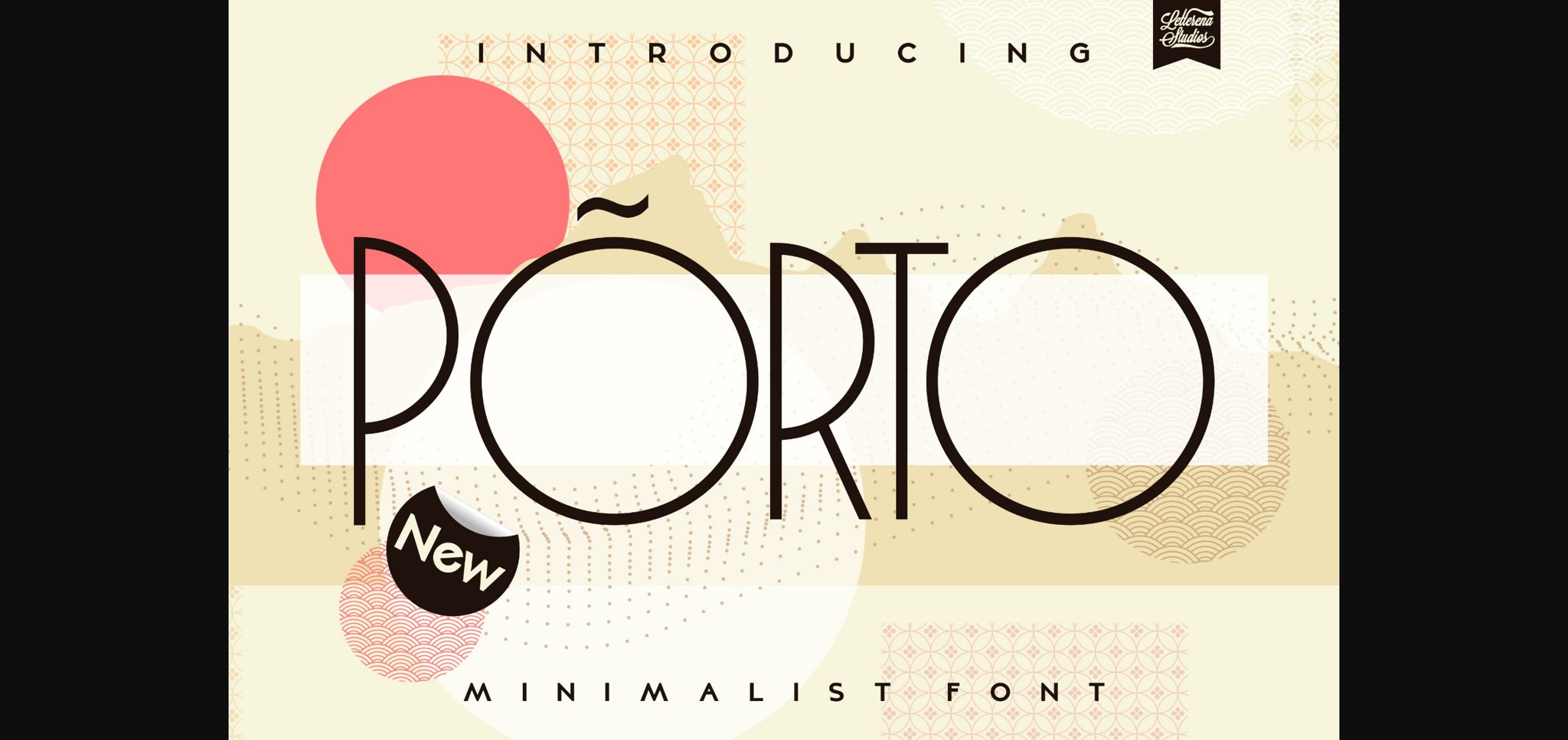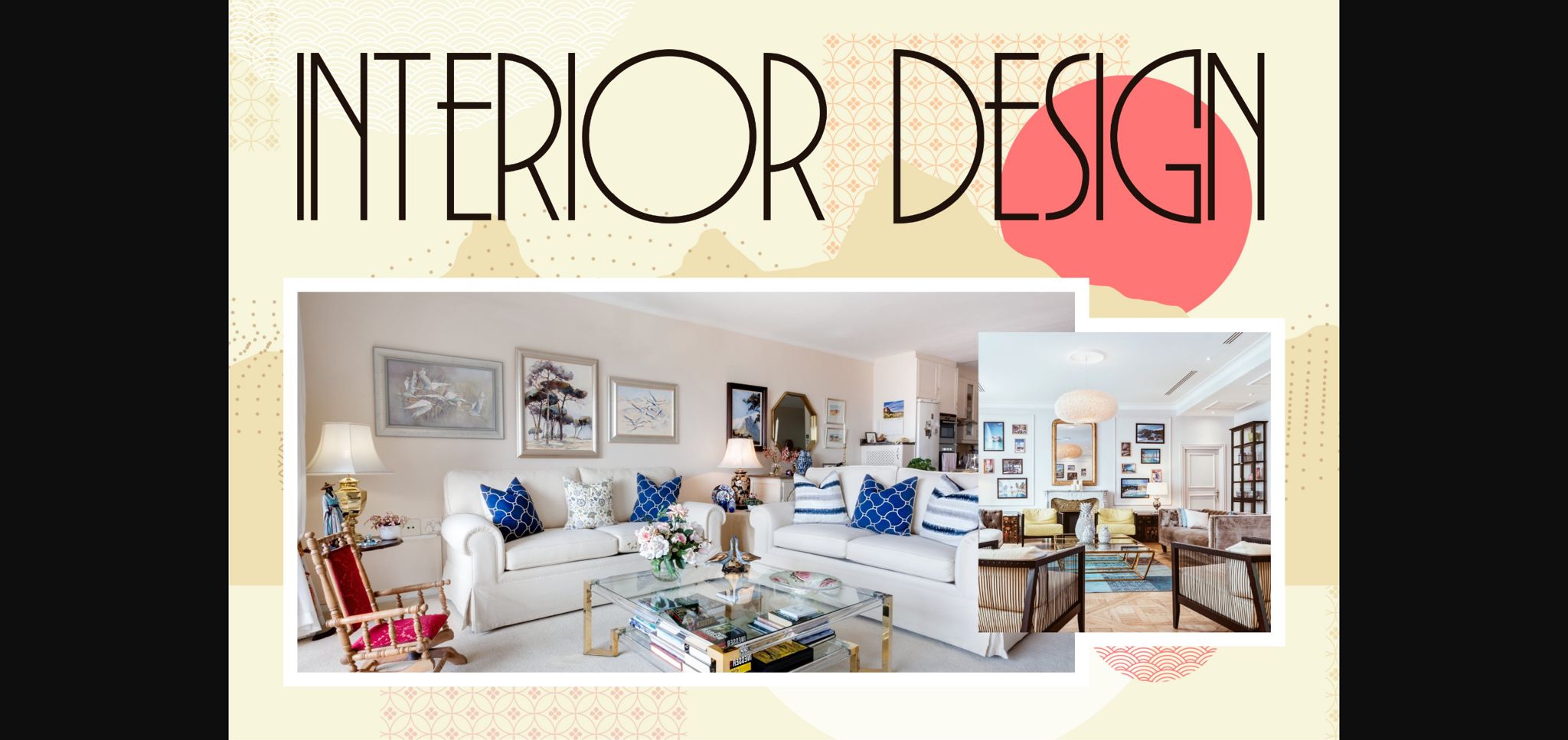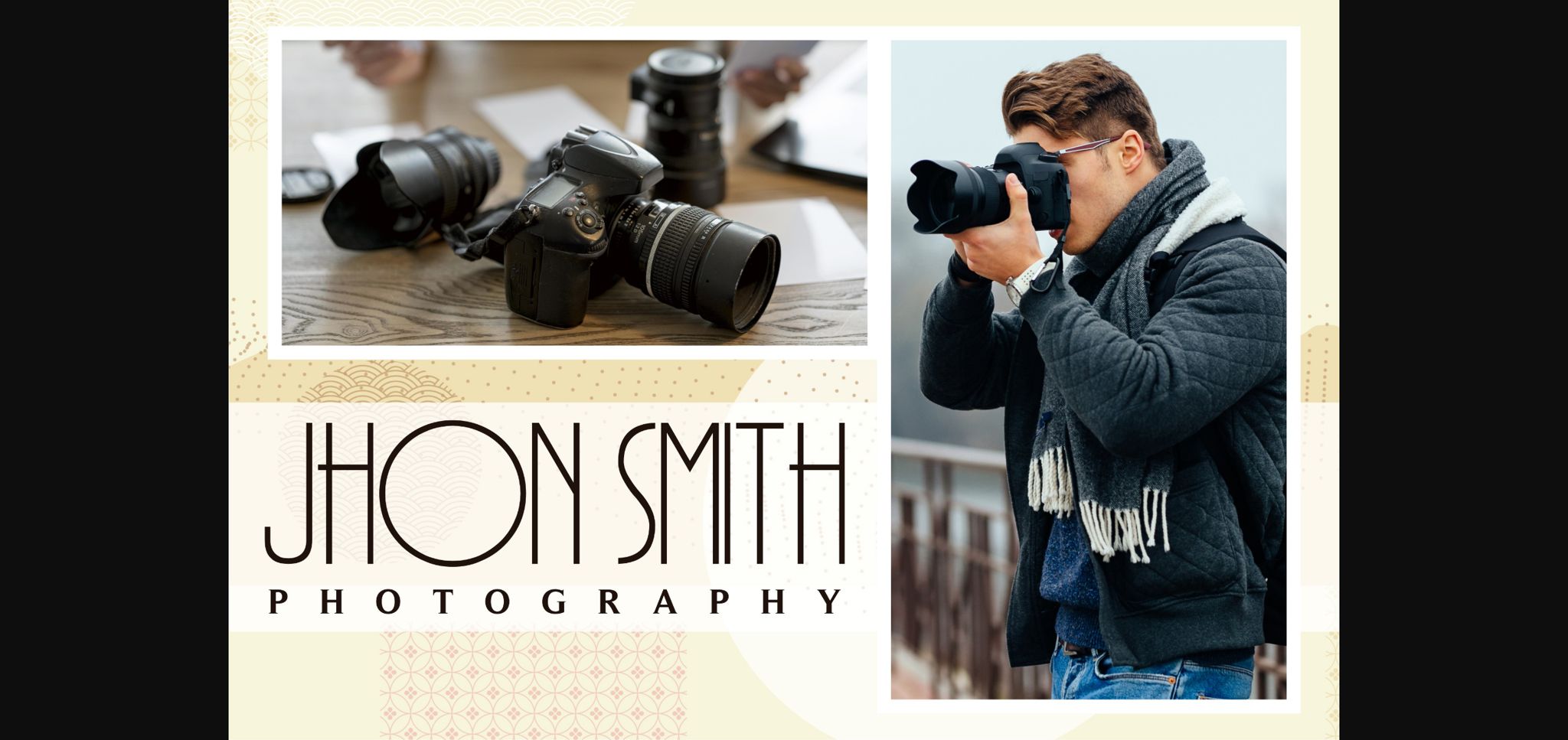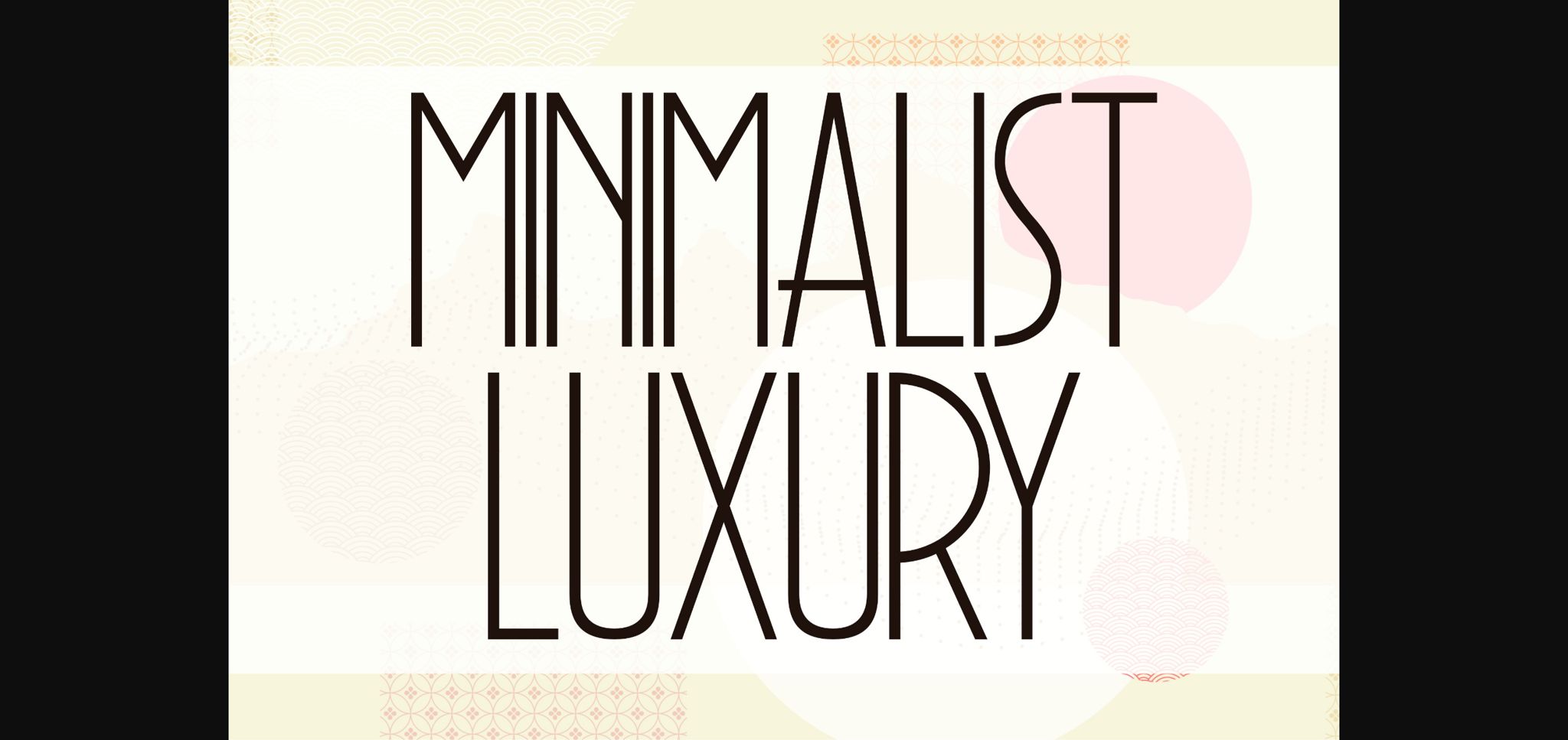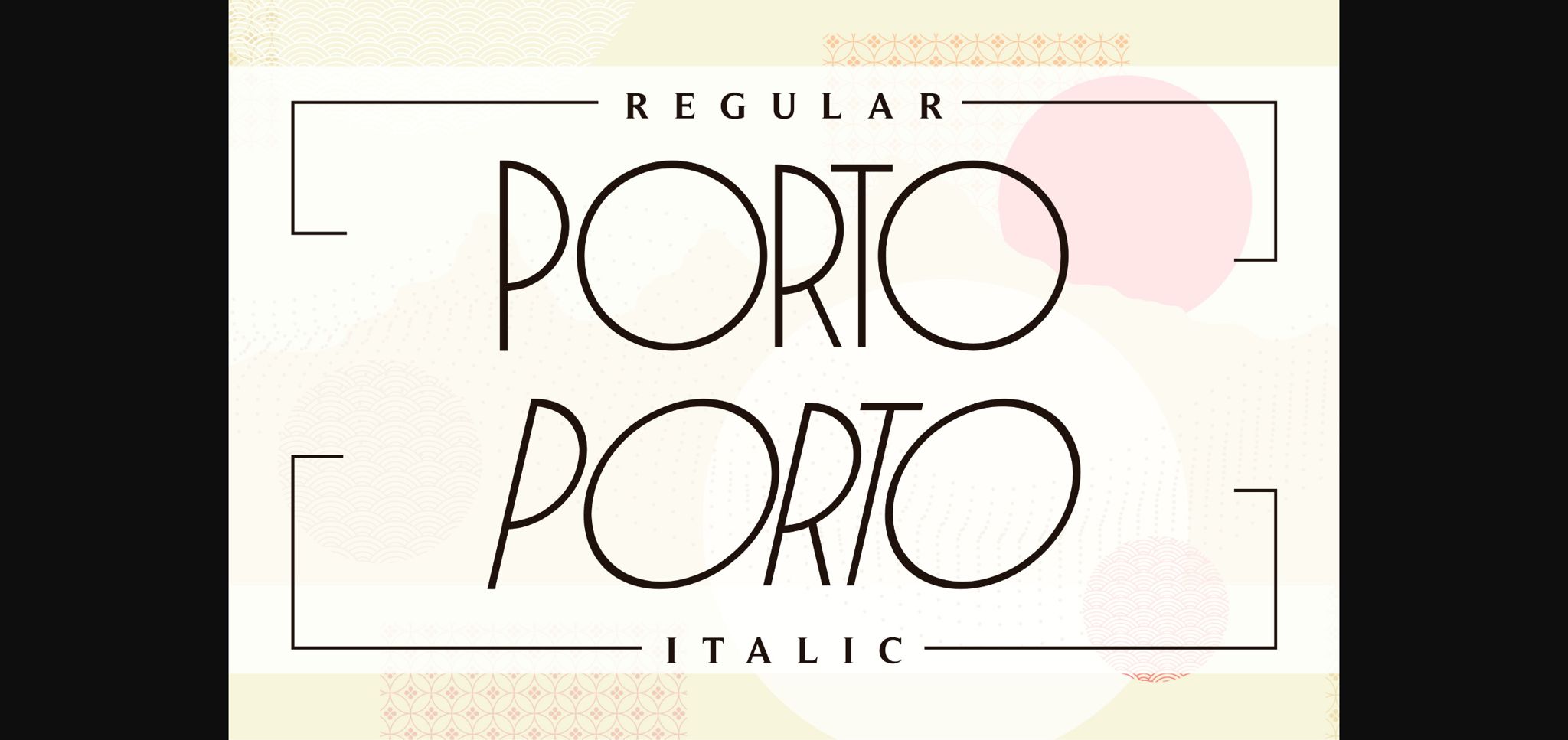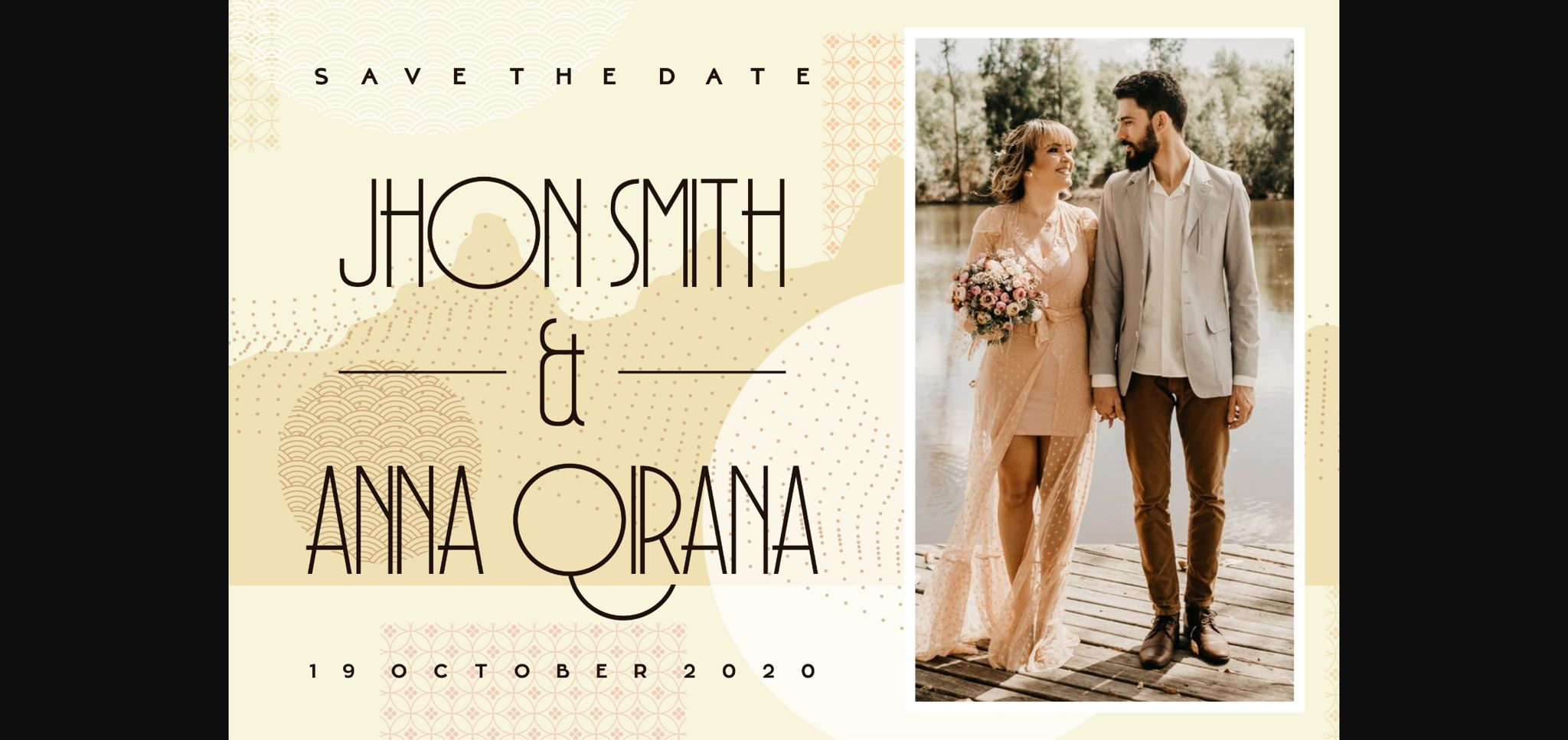
Porto Font
About Porto Font
Porto is a modern and wide lettered sans serif font. It has a clean, thin and smooth vibe and it will be a hit for any design that you want to add it to.